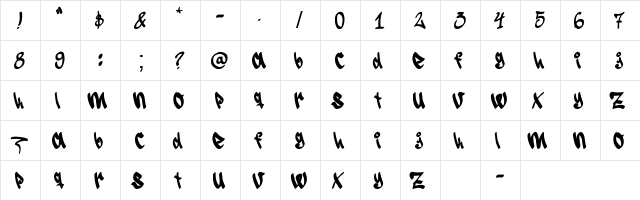
Serograff Regular
| Designer | Ogeday Koc @Turkey, 2019 |
Design Context for Serograff Typeface
Serograff is a composed and adaptable typeface that performs quietly and consistently across a wide range of design contexts.